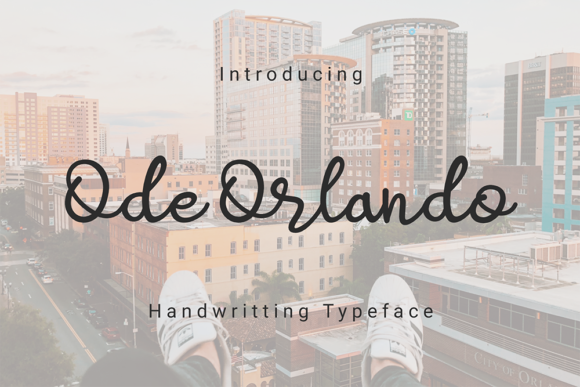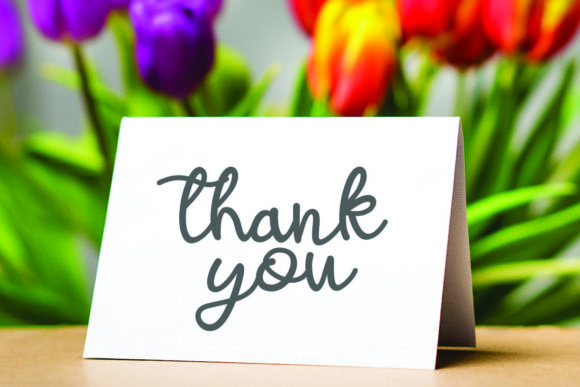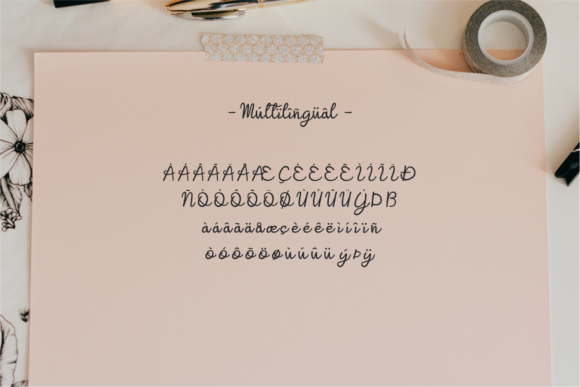
Ode Orlando Font
About Ode Orlando Font
Ode Orlando is a beautiful handwritten font, carefully created with a touch of elegance. It is the perfect font for making original and outstanding designs. Use your imagination and add Ode Orlando to your most favorite projects!